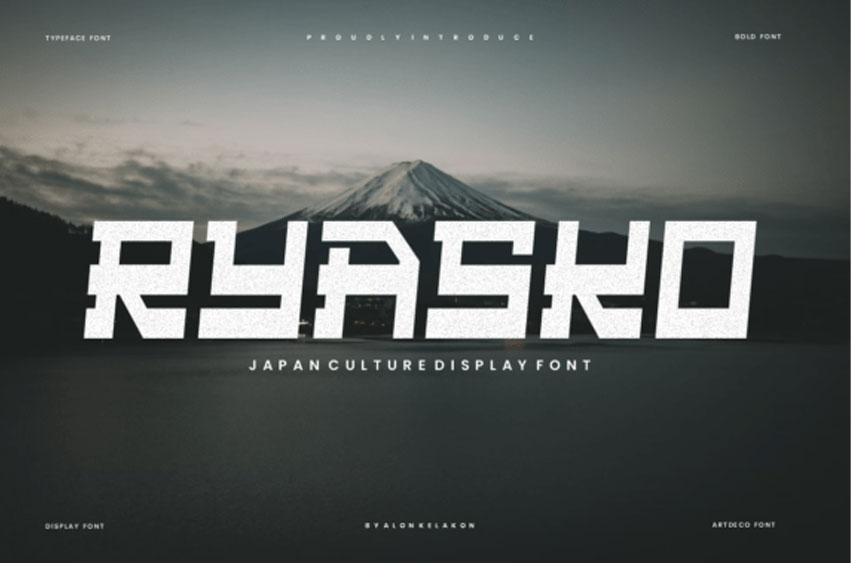
Ryasko Font is unique. Ready to use for your design like labeling, movie scenes, posters, movie titles, gigs, album covers, logos, and much more.
Ryasko Font Preview